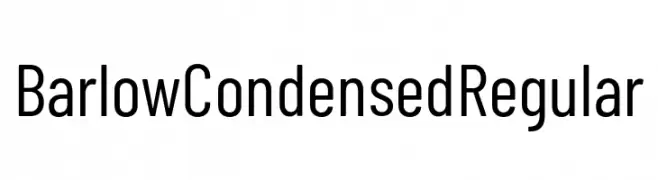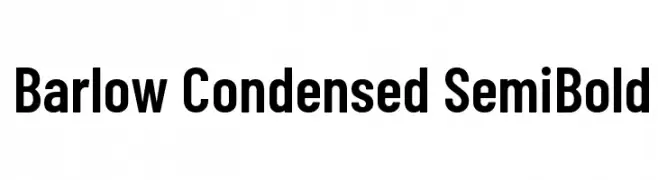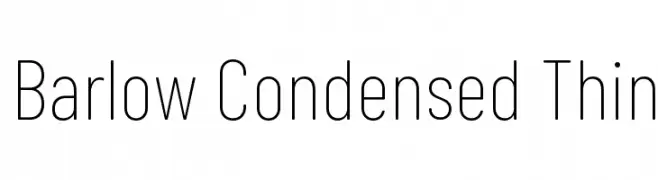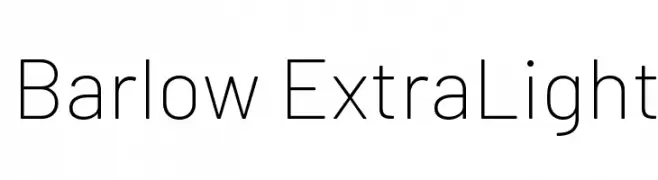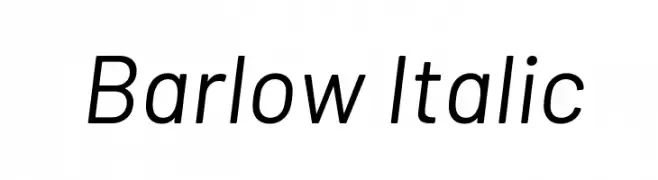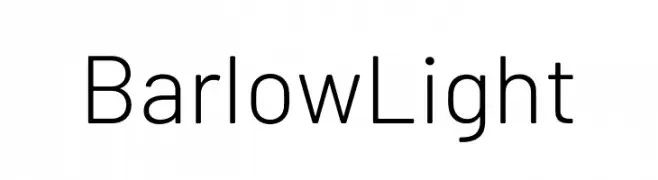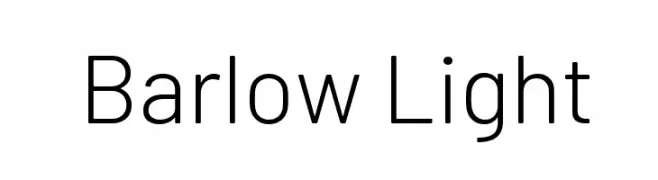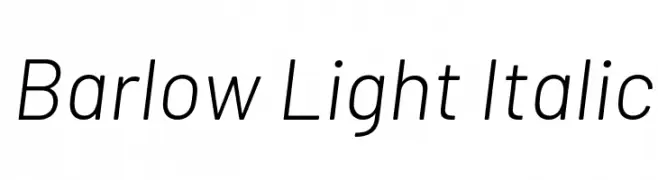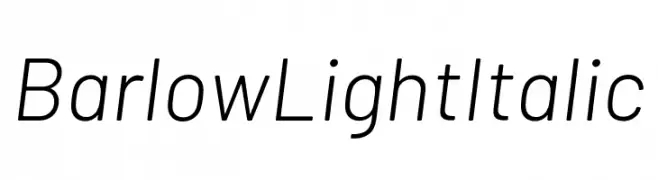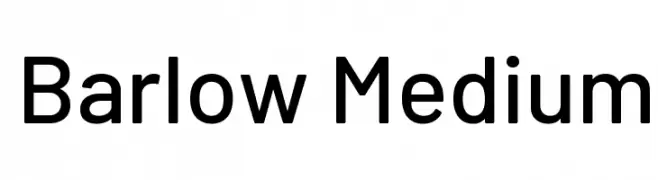
A modern, condensed typeface with low contrast and geometric style.
A modern, condensed sans-serif font with semi-bold weight and clean lines.
A modern, condensed, semi-bold italic font with a sleek and professional appearance.
A modern, condensed, semi-bold italic font with clean lines and tight spacing.
A modern, condensed font with thin strokes and a sleek, minimalist design.
A modern, thin, and condensed sans-serif font with a sleek design.
A modern, condensed, thin italic font with a sleek and airy design.
A modern, condensed, thin italic font with high contrast and sleek design.
A bold, modern sans-serif font with clean lines and geometric shapes.
A bold, modern sans-serif typeface with a geometric structure.
A bold, modern italic typeface with a clean and dynamic style.
A bold, italic typeface with a modern and dynamic style.
A geometric sans-serif font with a clean, modern aesthetic.
A modern, geometric sans-serif font with a clean and sleek design.
A modern, clean typeface with a subtle italic slant and uniform stroke width.
A sleek, modern extra-light italic font with a clean and minimalistic design.
A modern, italic sans-serif font with clean lines and balanced proportions.
A modern, italic sans-serif font with clean lines and consistent stroke width.
A modern, geometric sans-serif font with clean lines and balanced proportions.
A clean, modern sans-serif font with geometric shapes and open forms.
A modern, light, italic sans-serif font with low contrast and normal spacing.
A modern, light, and italic sans-serif font with smooth strokes and even spacing.
A modern, geometric sans-serif font with a clean and professional look.
A modern, geometric sans-serif font with clean lines and a slightly condensed structure.
A modern, italic sans-serif font with clean lines and balanced proportions.
A modern, medium-weight italic sans-serif font with a clean and dynamic style.
A modern, geometric sans-serif font with a clean and balanced design.
( Fonts by Tribby )
A modern, geometric sans-serif font with excellent readability.
( Copyright 2017 The Barlow Project Authors (https://github.com/jpt/barlow) )
A bold, semi-condensed font with a modern and impactful style.
( Fonts by Tribby )
A bold, semi-condensed font with a strong, modern aesthetic.
Bold, semi-condensed italic typeface with a strong, modern style.
Bold, semi-condensed italic font with strong, dynamic strokes.
A bold, semi-condensed font with a modern and clean design.
( Fonts by Tribby )
A bold, semi-condensed font with a modern and clean appearance.